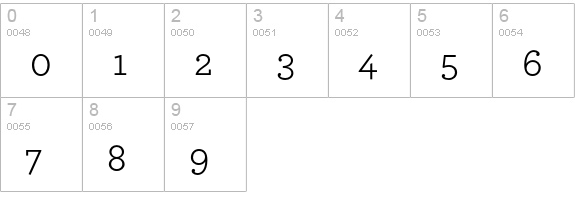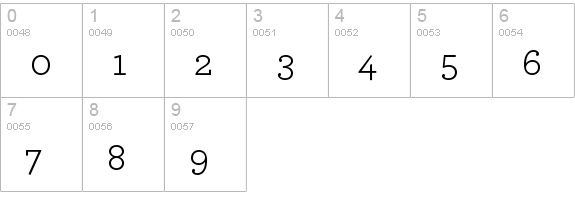
Archer Book Font Details
Archer Book is a comfortable, highly readable variant in the Archer typeface family \xE2\x80\x94 well suited to long-form body text, articles, and editorial content.
Archer Book font is a timeless and elegant typeface that exudes sophistication and modernity. Its sleek lines and gentle curves make it perfect for a wide range of design projects, from branding to editorial design. The versatility of Archer Book font allows it to effortlessly adapt to various styles and themes, making it a must-have in any designer's toolkit. The best part? Archer Book font is available for free download at FontsMarket.com. This means that you can easily access this premium font without any cost, allowing you to elevate your designs without breaking the bank. Whether you're working on a professional project or a personal endeavor, Archer Book font is sure to add a touch of refinement and class to your work. Download it today and see the difference it can make in your designs!